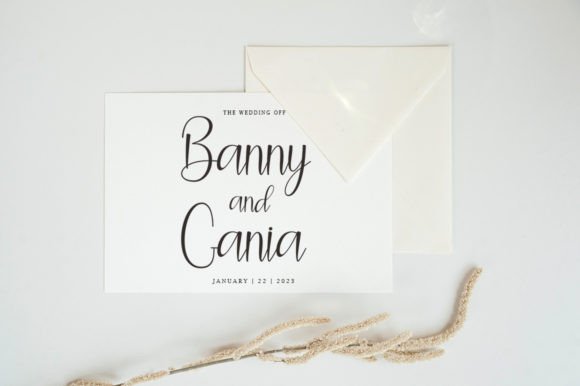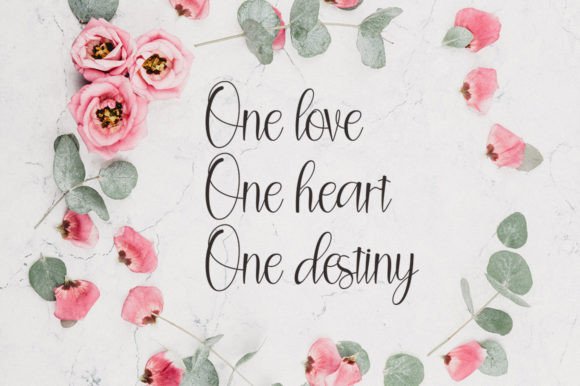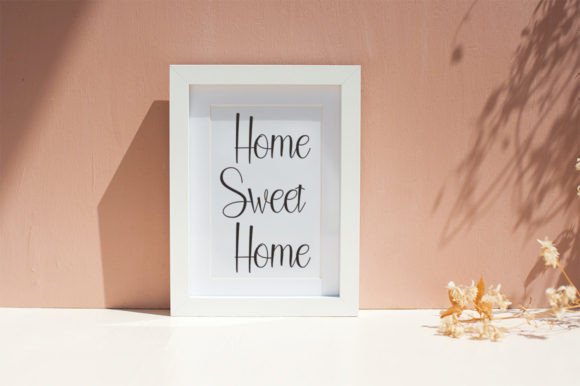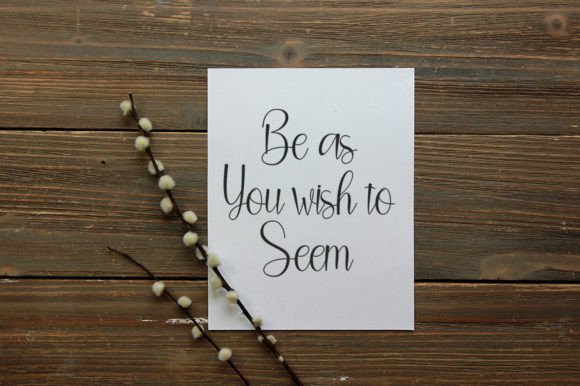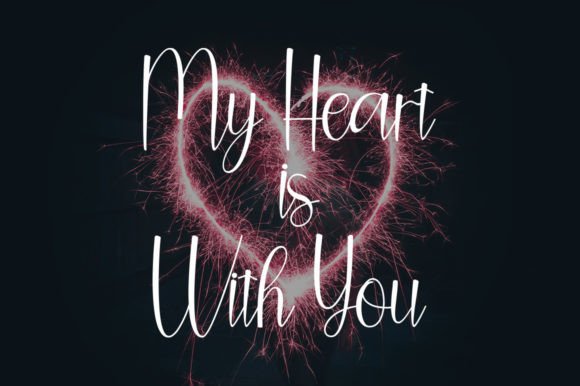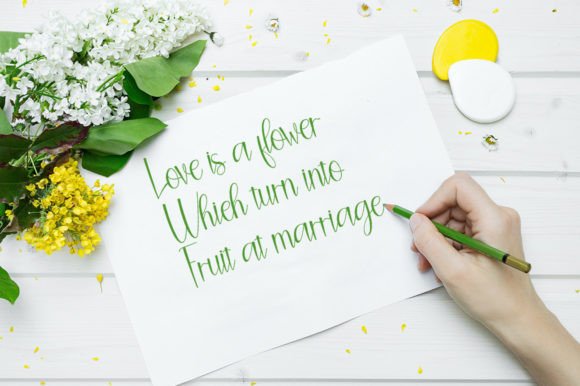
Camila Font: The Epitome of Elegance in Handwritten Typography
In the realm of typography, few fonts manage to capture the essence of elegance and romance as effortlessly as Camila. This stunning handwritten font is a masterpiece of modern design, distilling sophistication into a truly outstanding typeface. Whether you’re a designer looking for the perfect addition to your creative projects or a crafter seeking to elevate your DIY endeavors, Camila is sure to leave a lasting impression.
The Beauty of Camila: A Closer Look
Camila’s beauty lies in its intricate details and flowing lines, which evoke a sense of nostalgia and whimsy. This romantic font is characterized by its delicate strokes, subtle imperfections, and charming ligatures, making it an ideal choice for a variety of applications. From love letters and wedding invitations to branding and packaging design, Camila’s versatility knows no bounds.
Adding a Touch of Romance to Your Designs
One of the most significant advantages of Camila is its ability to add a touch of romance and sophistication to any design. Imagine sending a heartfelt love letter or wedding invitation adorned with this lovely font – it’s sure to make the recipient feel special. Similarly, incorporating Camila into your branding or packaging design can help create an emotional connection with your audience, setting your brand apart from the competition.
Camila in Design: Endless Possibilities
The possibilities are endless when it comes to using Camila in your designs. Here are a few ideas to get you started:
- Wedding Stationery: Use Camila to create breathtaking wedding invitations, save-the-date cards, and thank-you notes that will leave a lasting impression on your guests.
- Love Letters: Add a touch of romance to your love letters and make them truly unforgettable with Camila’s elegant script.
- Branding and Packaging: Incorporate Camila into your branding and packaging design to create a unique and memorable visual identity for your business.
- DIY Projects: Use Camila to add a personal touch to your DIY projects, such as handmade cards, scrapbooking, and journaling.
Why Designers and Crafters Love Camila
Camila has quickly become a favorite among designers and crafters due to its unique combination of elegance, romance, and versatility. Here are a few reasons why:
- Easy to Read: Despite its intricate details, Camila is surprisingly easy to read, making it perfect for body text and headlines.
- Highly Versatile: Camila can be used in a variety of contexts, from digital designs to print materials.
- Unique and Memorable: Camila’s distinctive style ensures that your designs will stand out from the crowd and leave a lasting impression.
In conclusion, Camila is a truly exceptional handwritten font that embodies the perfect blend of elegance, romance, and versatility. Whether you’re a designer, crafter, or simply someone who appreciates beautiful typography, Camila is sure to captivate and inspire. So why wait? Add Camila to your design arsenal today and discover the magic of this outstanding font for yourself.